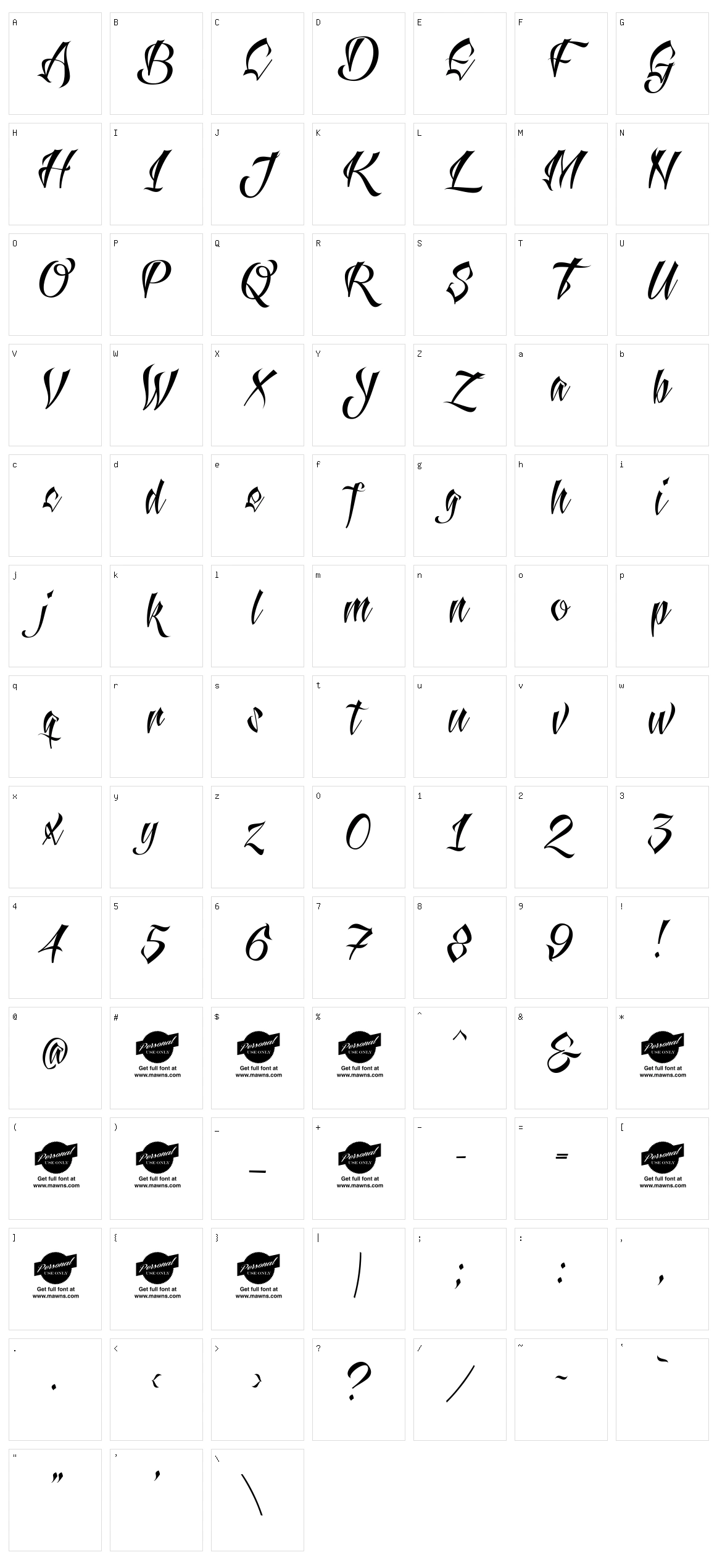
The free font Antlers is carefully designed by Mans Greback, showcasing a thoughtful balance of creativity and usability and falls under the Script font style. When you download the ZIP file, it contains only 238.52 KB of font files, making it lightweight and quick to download. Please review the license details below to understand permitted usage and distribution rights. If license information is not available, we recommend using this font for personal projects only or contacting the author directly for commercial usage permissions.